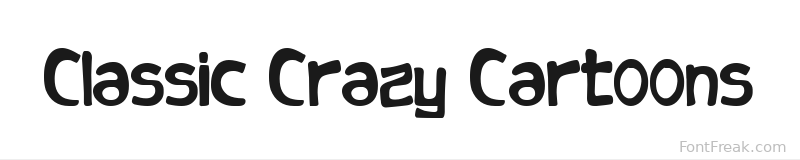
Classic Crazy Cartoons
About Classic Crazy Cartoons
Classic Crazy Cartoons is a distinctive display font created by woodcutter Manero, characterized by its playful and whimsical nature. This freeware font falls into the decorative category, making it an ideal choice for projects that require a lighthearted and fun aesthetic. The font features rounded edges and a slightly irregular stroke weight, giving it a hand-drawn feel that resonates with the charm of classic cartoon art. The generous spacing between letters enhances readability while contributing to its unique character.
The visual style of Classic Crazy Cartoons combines a sense of nostalgia with a modern twist, making it suitable for various applications. It works exceptionally well for children's book covers, where its playful vibe captures the imagination of young readers. Additionally, it can be used in animated movie posters to evoke a sense of fun and adventure. Restaurant menus that aim to create an inviting atmosphere can also benefit from this font, as its cheerful appearance adds to the dining experience. Moreover, graphic designers can leverage this font for social media graphics, creating eye-catching posts that stand out in crowded feeds.
Target audiences for the Classic Crazy Cartoons font include graphic designers, small business owners, and content creators looking to infuse their projects with a sense of creativity and whimsy. The font appeals to children and adults alike, making it versatile for various demographics.
What sets Classic Crazy Cartoons apart is its ability to evoke joy and nostalgia, making it a perfect choice for projects that aim to entertain and engage. With its unique charm, the Classic Crazy Cartoons font free download is an excellent resource for anyone looking to add a playful touch to their designs.